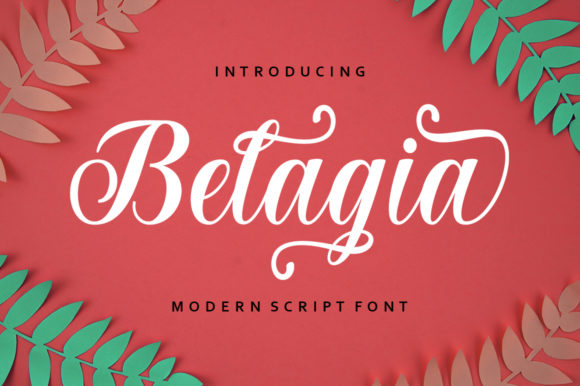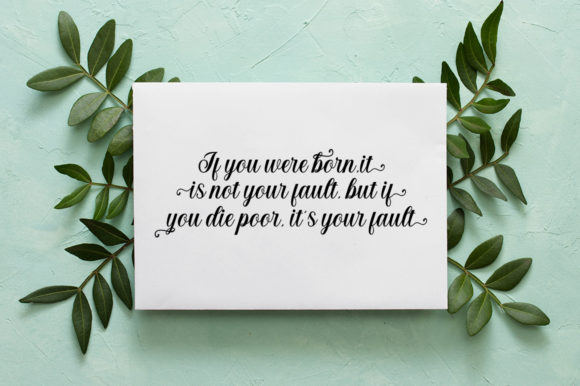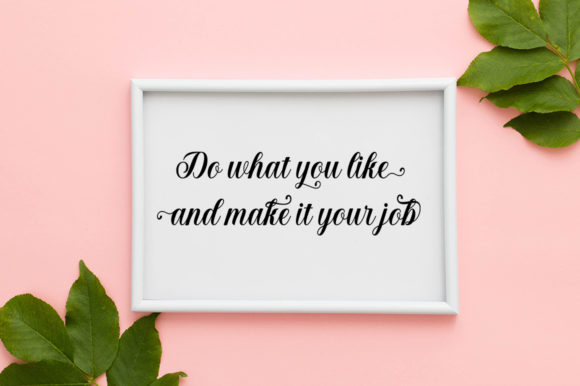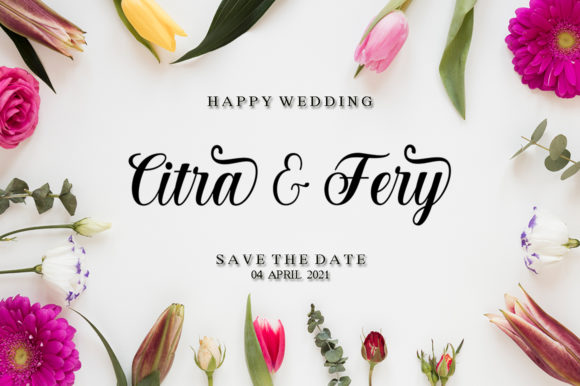
About Belagia Font
Belagia is a gentle and beautiful handwritten font. The playful rounded characters make it the perfect font for creating exquisite wedding invitations, beautiful stationary art, eye-catching social media posts, and cute greeting cards.
This font is PUA encoded which means you can access all of the glyphs and swashes with ease! It also features a wealth of special features including alternate glyphs and ligatures.